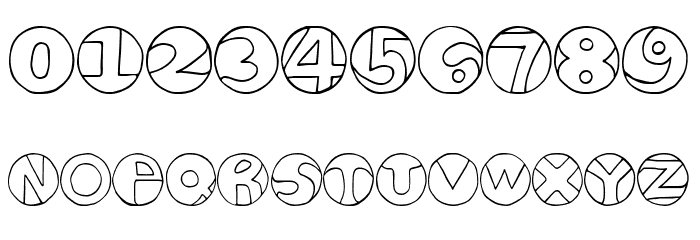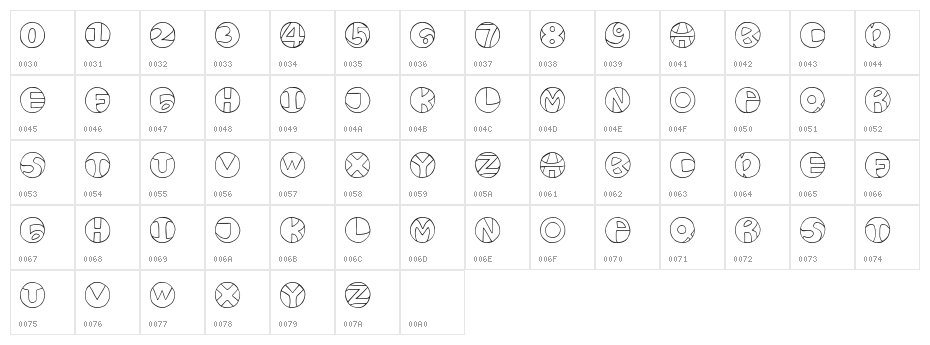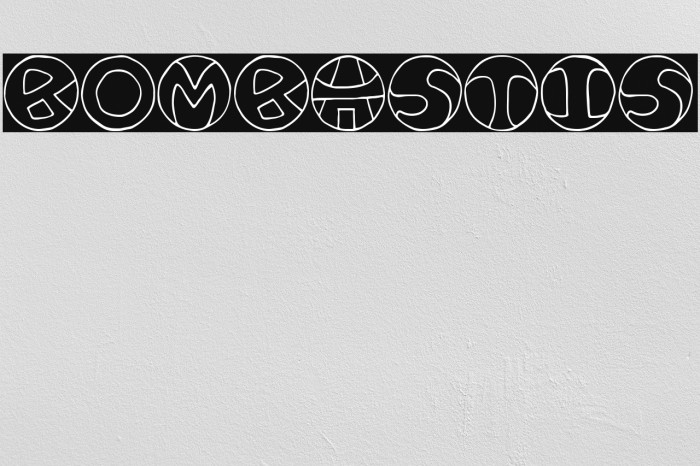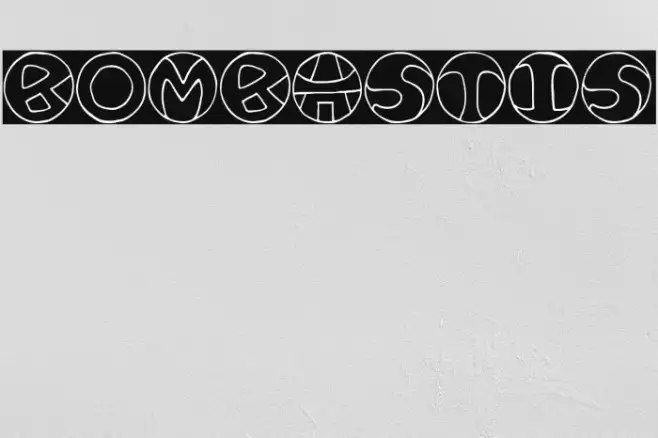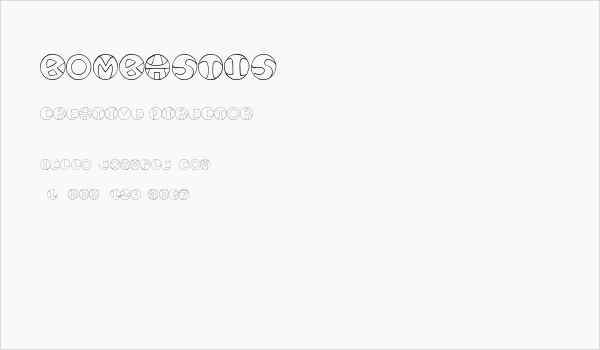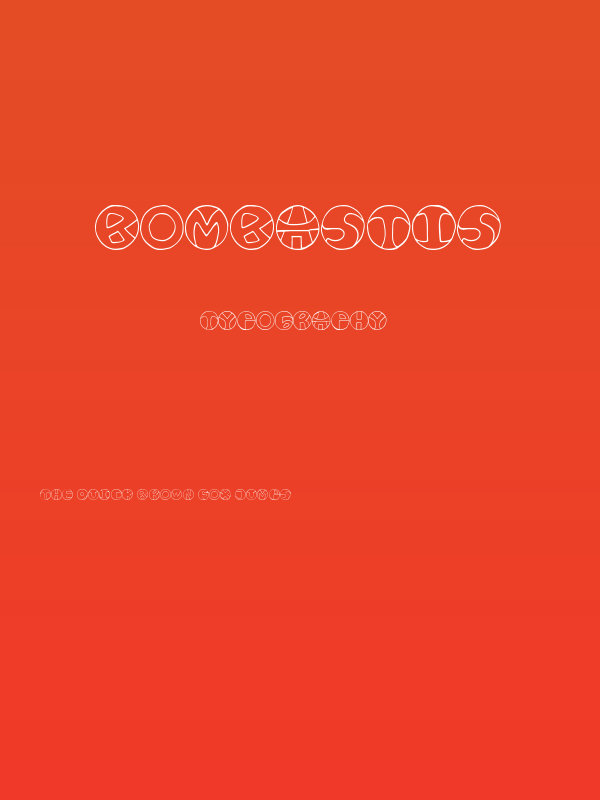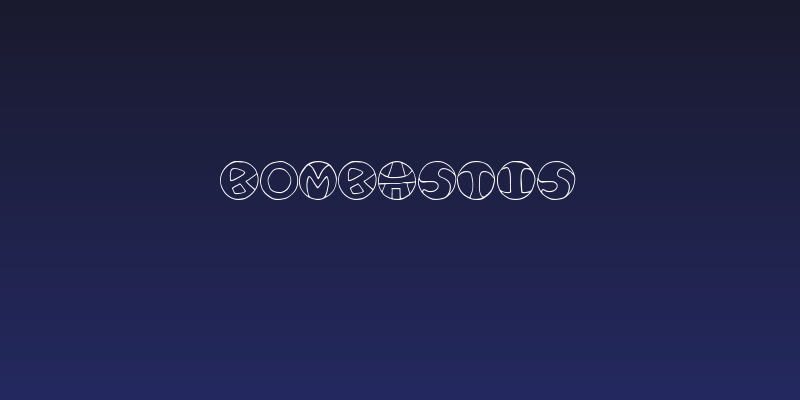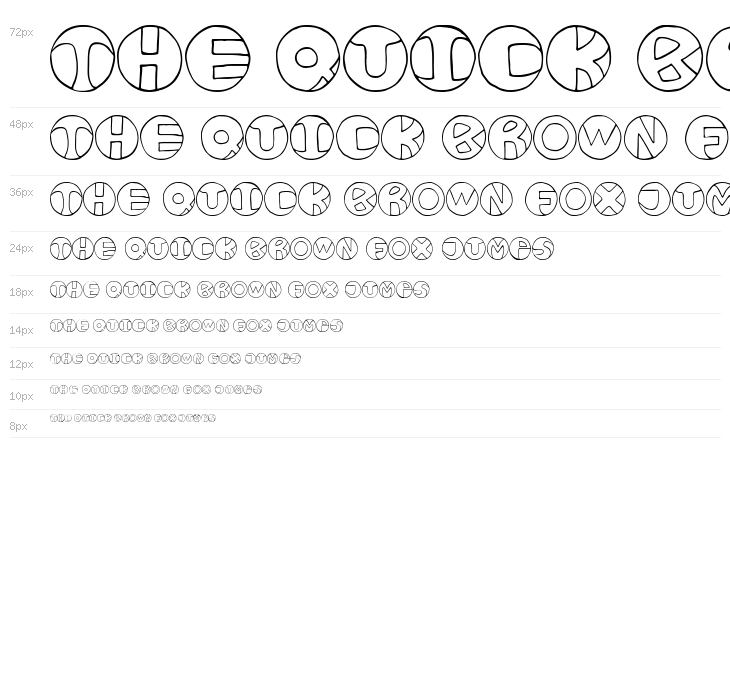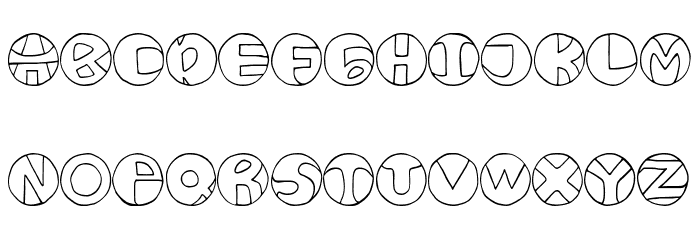
Bombastis Font
Bombastis Description
This font features a unique and playful design where each character is encapsulated within a circle, creating a bold and eye-catching appearance. The letters are constructed with thick, geometric lines that intersect and overlap, giving a sense of depth and dimension. The style is reminiscent of modern art deco, with a touch of retro futurism. The characters are evenly spaced within their circular boundaries, ensuring a consistent and harmonious look across the entire set. This font is ideal for projects that require a distinct and memorable visual impact, such as branding, posters, and creative advertising.
| Proposed Projects | Ideal for branding, posters, creative advertising, and any project needing a striking visual impact. |